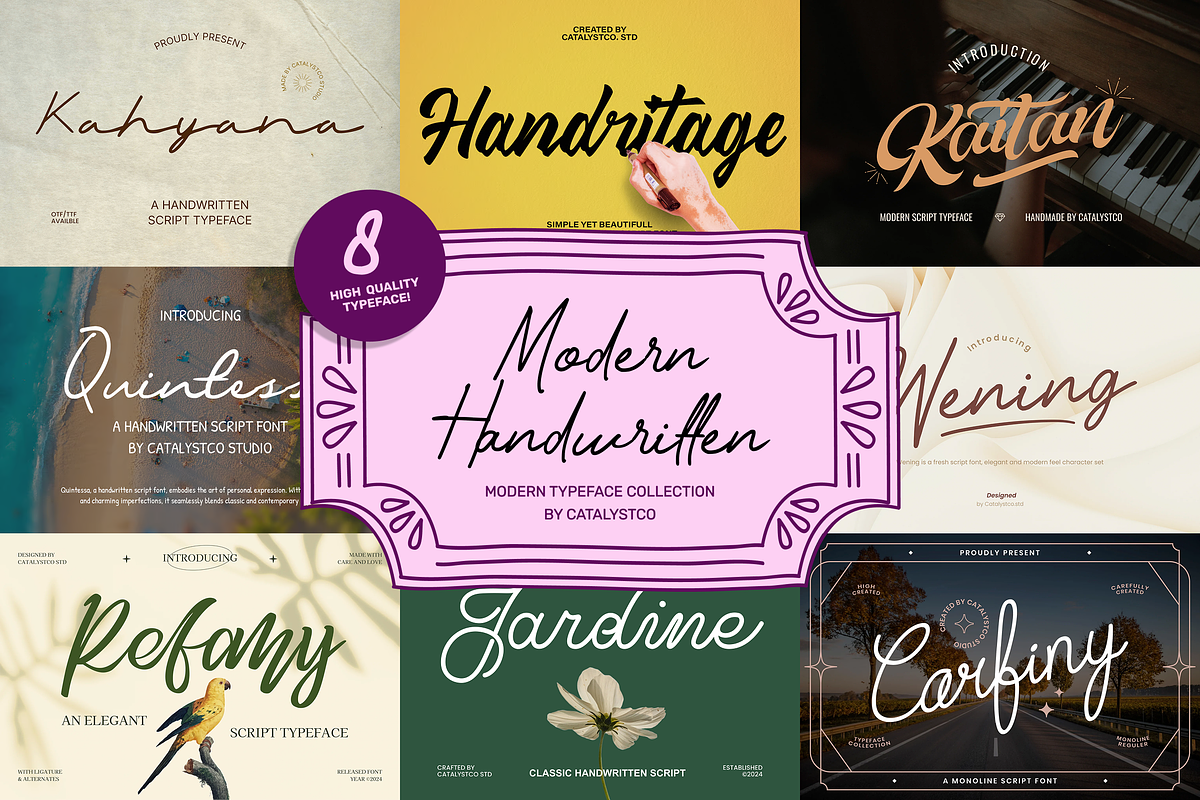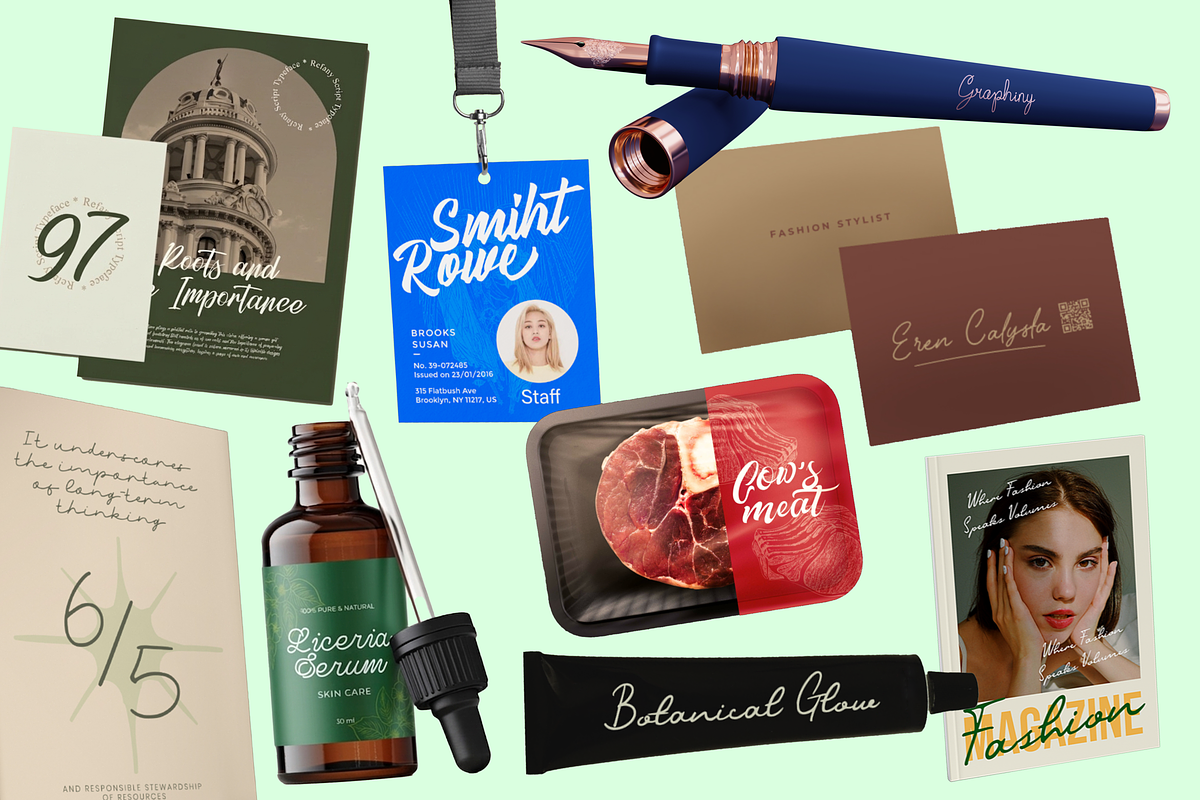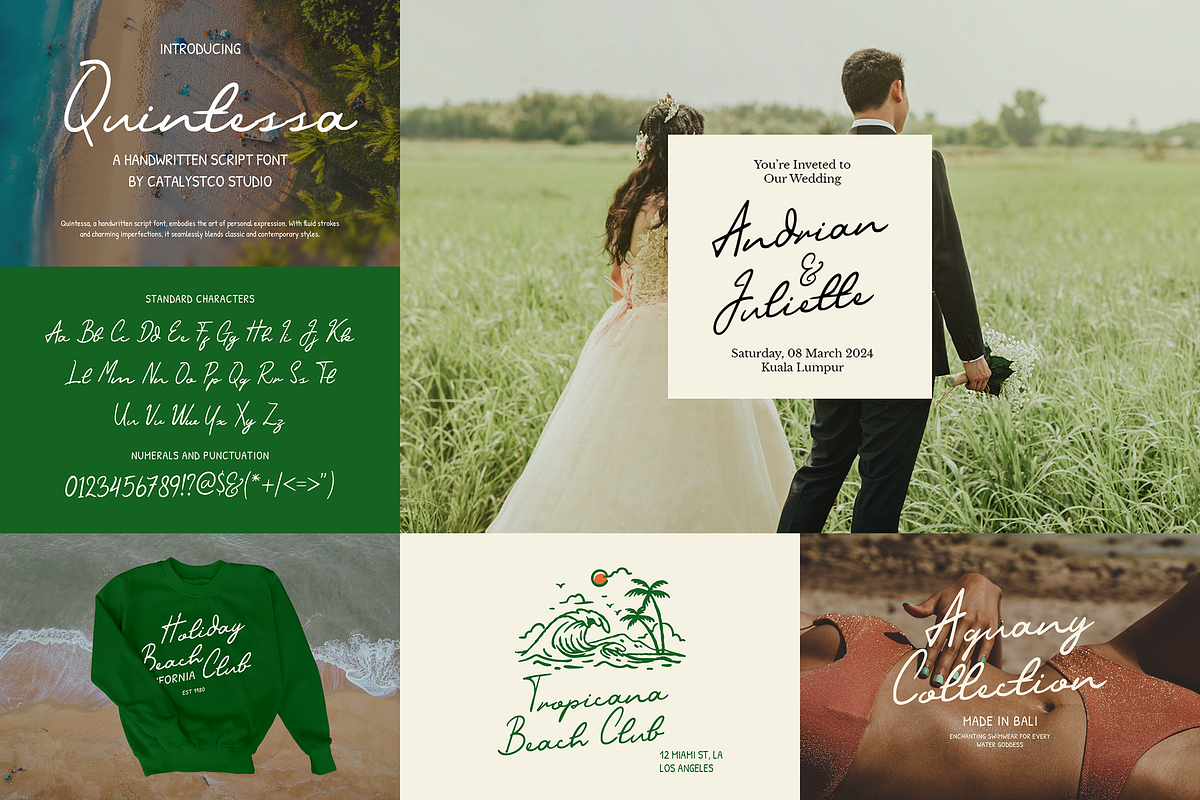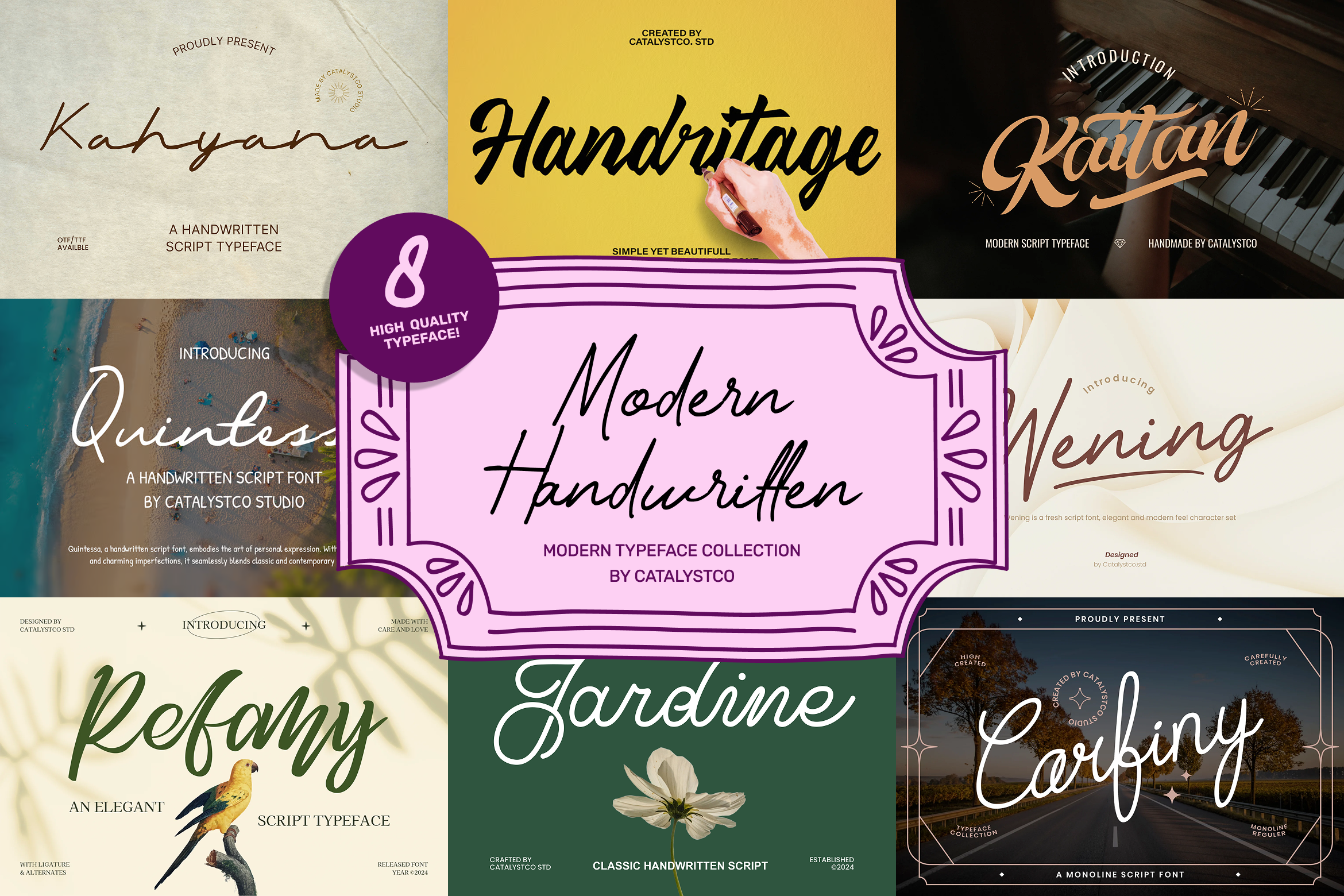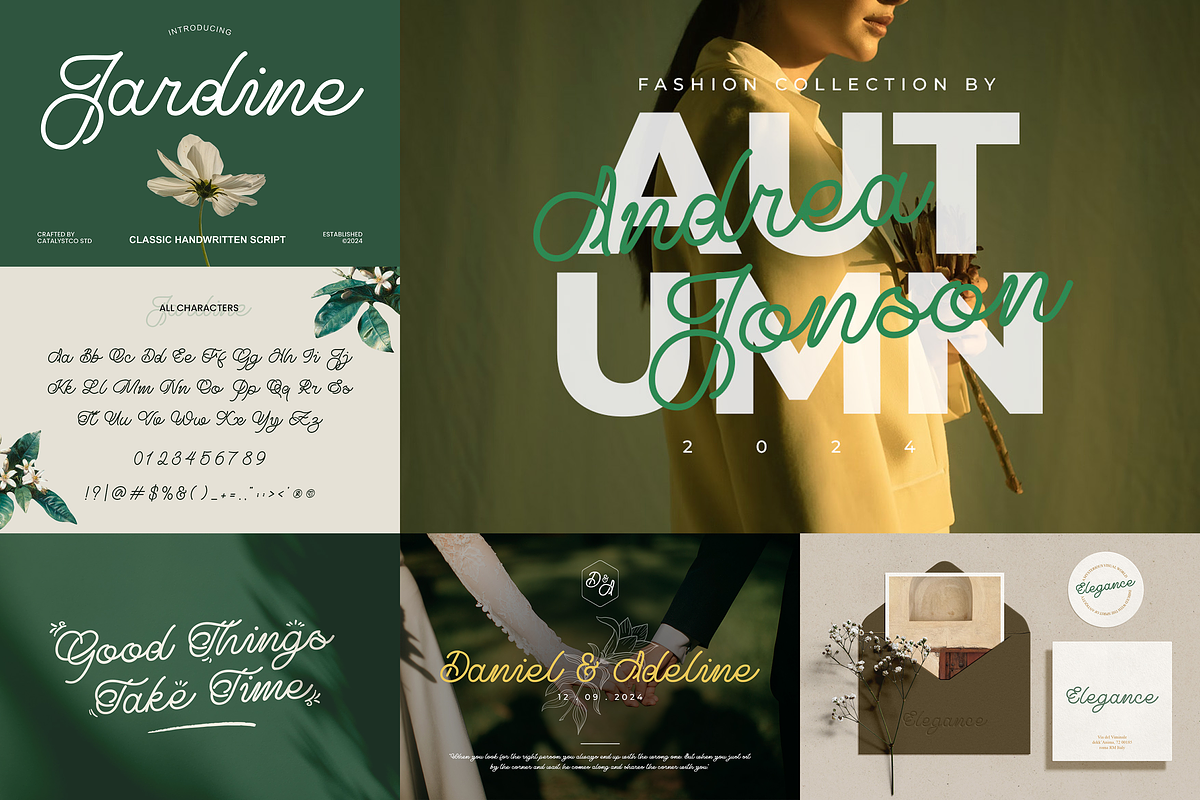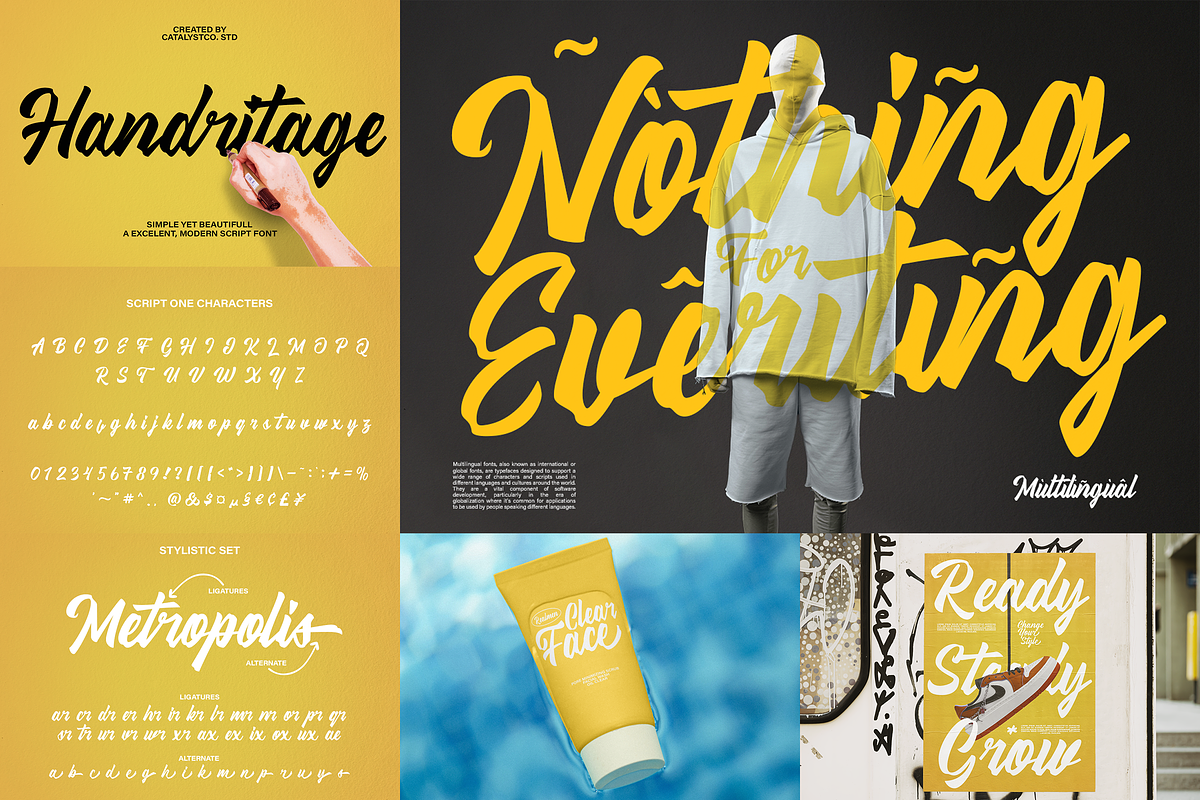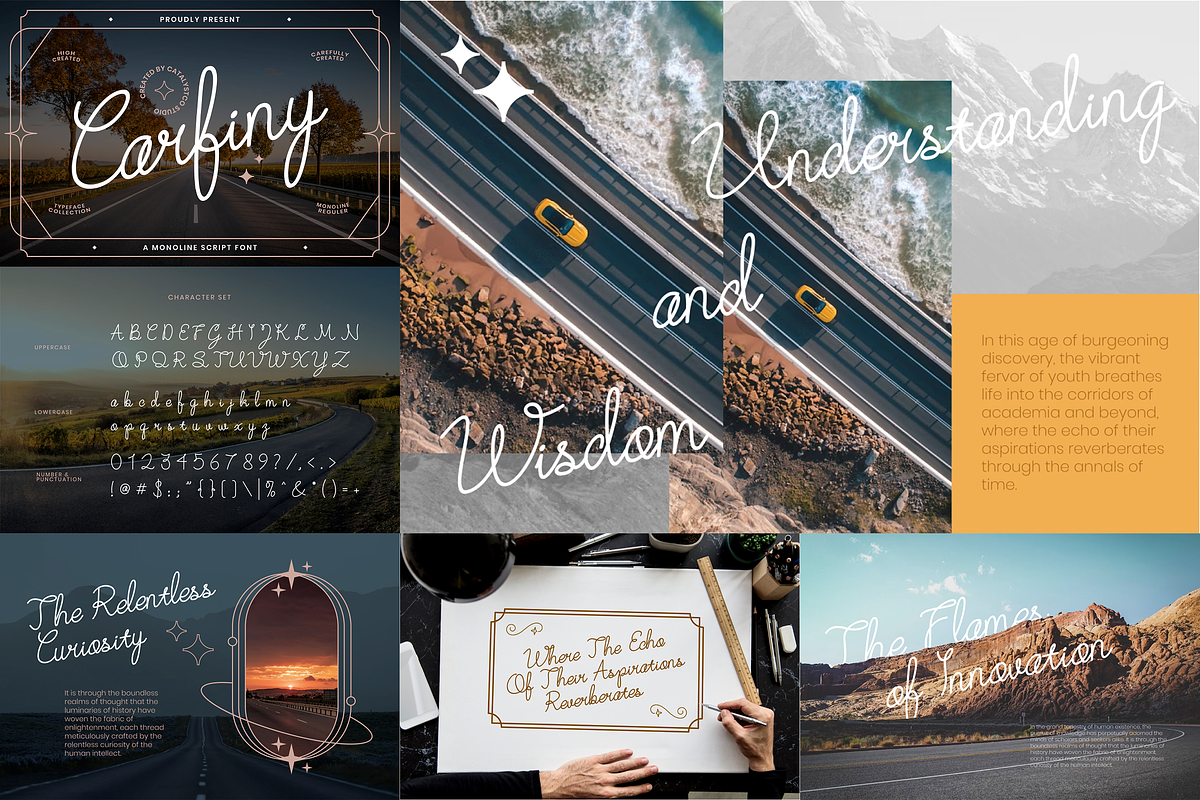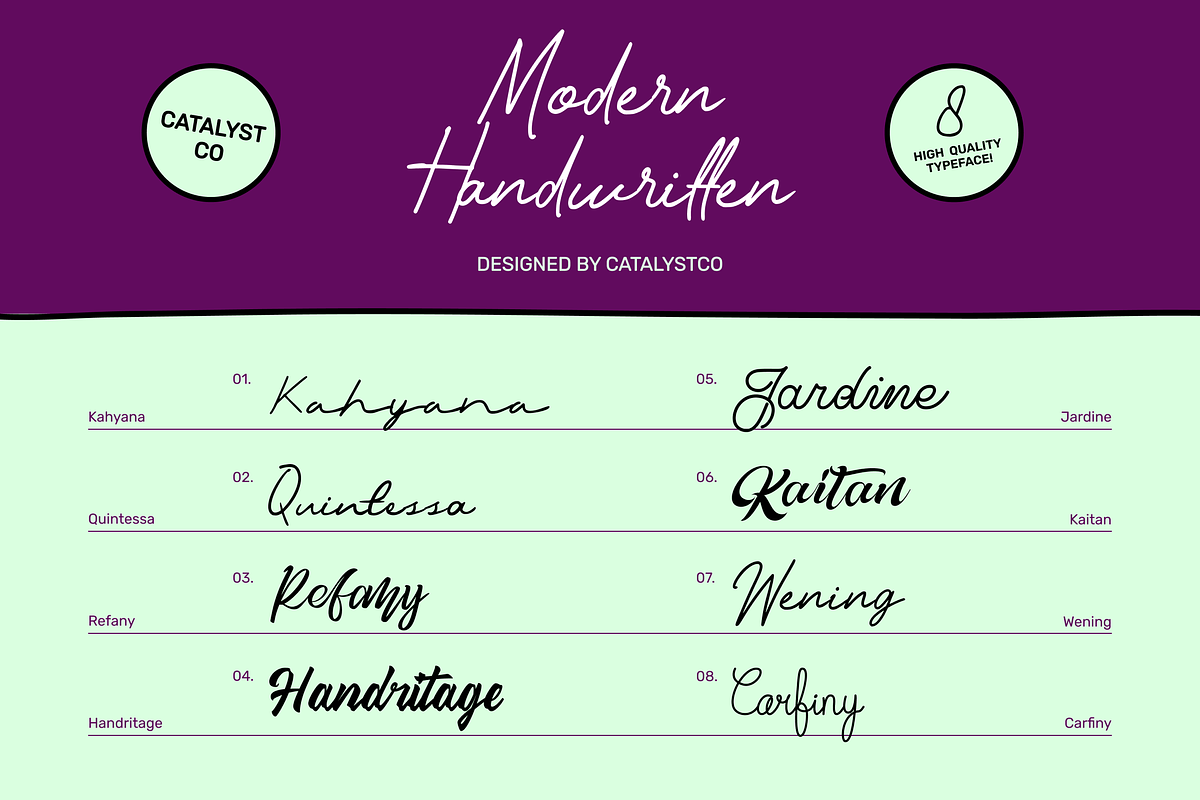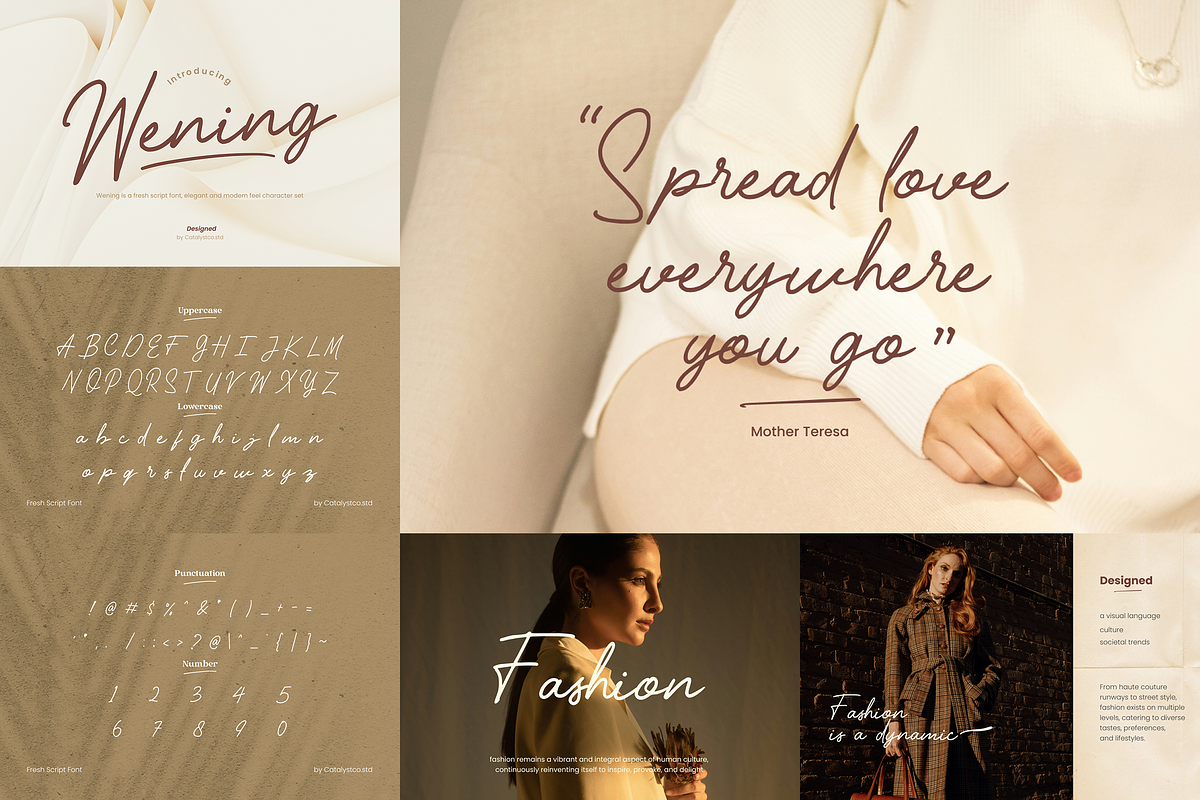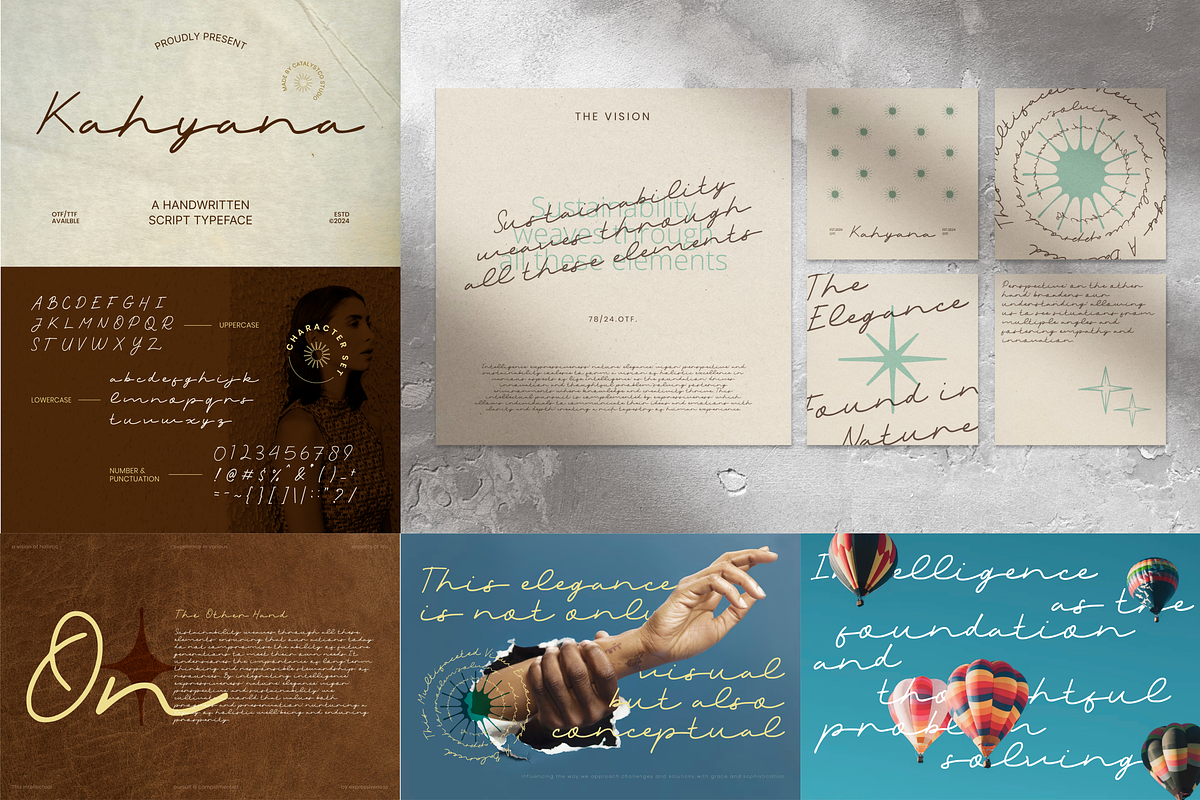
Modern Handwritten Typeface Font
Modern Handwritten Script Font Collection features a curated set of 8 stylish script typefaces inspired by natural handwriting and fluid pen strokes. The package includes OTF/TTF formats with multilingual support, numerals, punctuation, and smooth ligatures for seamless letter connections. Each font highlights organic curves, elegant flow, and expressive strokes that bring a personal and authentic touch to any design.
Relevance and Use Cases is perfect for branding design, logo creation, product packaging, beauty and fashion visuals, wedding invitations, social media content, personal projects, and marketing materials that require a natural, elegant, and expressive handwritten style.
- Natural handwritten strokes with fluid and organic letterforms
- Smooth connecting lines and ligatures for seamless script flow
- Subtle stroke contrast that enhances elegance and readability
- Soft curves and rounded endings for a friendly, personal feel
- Balanced spacing for clear visibility in both display and branding use
- Brand identity systems that highlight personal, elegant, and handcrafted character
- Logo design and signature-style branding with a natural handwritten feel
- Product packaging and labels for beauty, fashion, and lifestyle products
- Wedding invitations, greeting cards, and stationery with a soft and romantic touch
- Social media content and creative marketing materials
- Screen-optimized kerning for responsive web design -Supports numerals, punctuation, and extensive symbol set